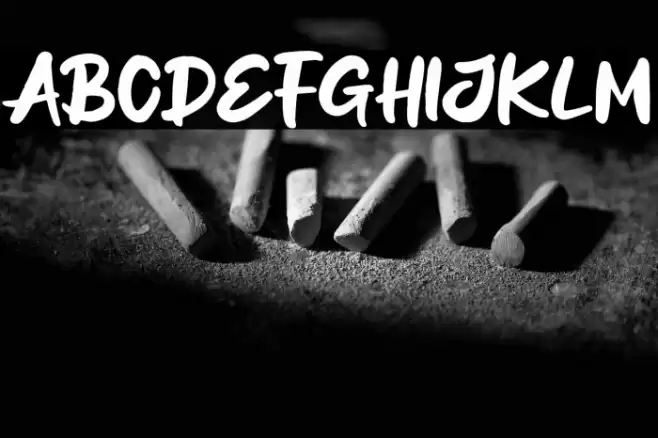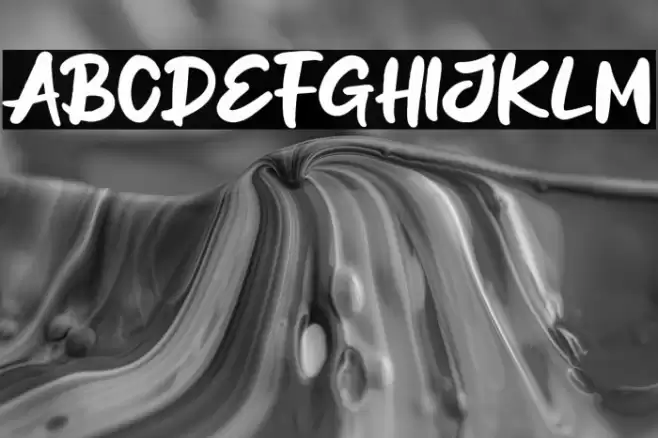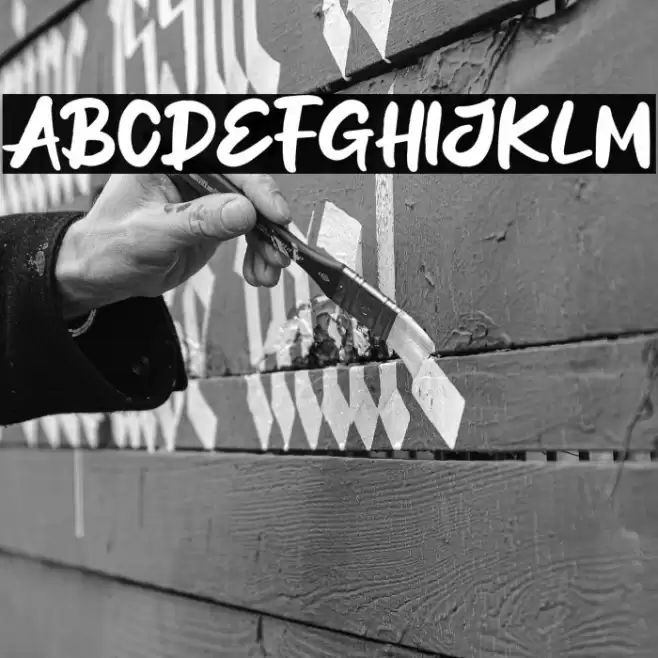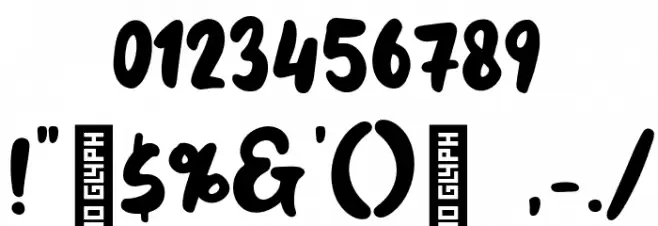
Litchi Days Font
Litchi Days Description
This font features a bold, handwritten style with a playful and energetic appearance. The letters are connected in a flowing manner, giving it a casual and friendly vibe. The uppercase letters are bold and slightly slanted, while the lowercase letters maintain a consistent flow with rounded edges. The numbers are clear and easy to read, matching the overall style of the letters. Special characters are included, maintaining the same bold and playful aesthetic. This font is perfect for projects that require a personal touch or a sense of informality.
A bold, handwritten font with a playful and energetic style from Uncategorized fonts.
- Font: Litchi Days
- Proposed Projects: Ideal for greeting cards, invitations, posters, and social media graphics.
- Overall Style: Casual
- Use Case: Headlines, Logos, Invitations